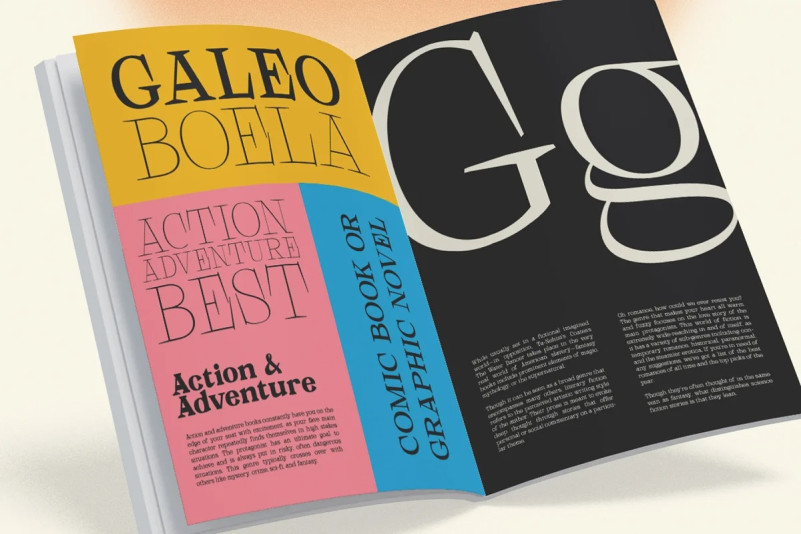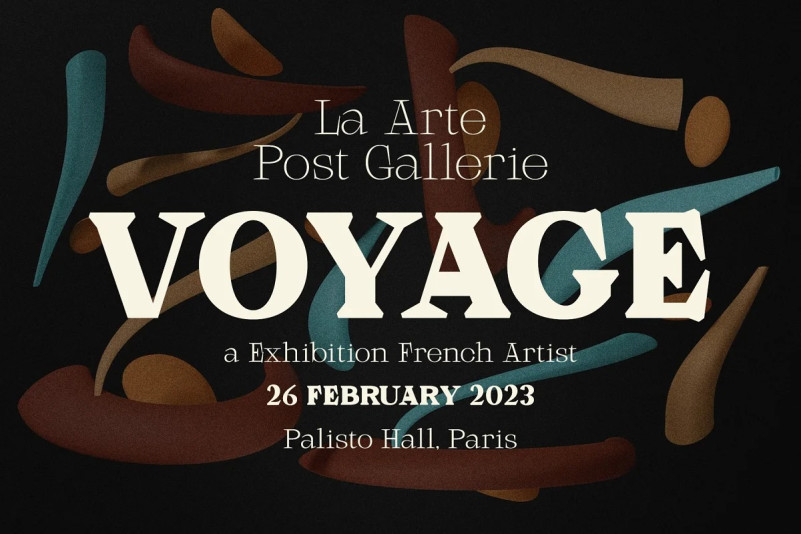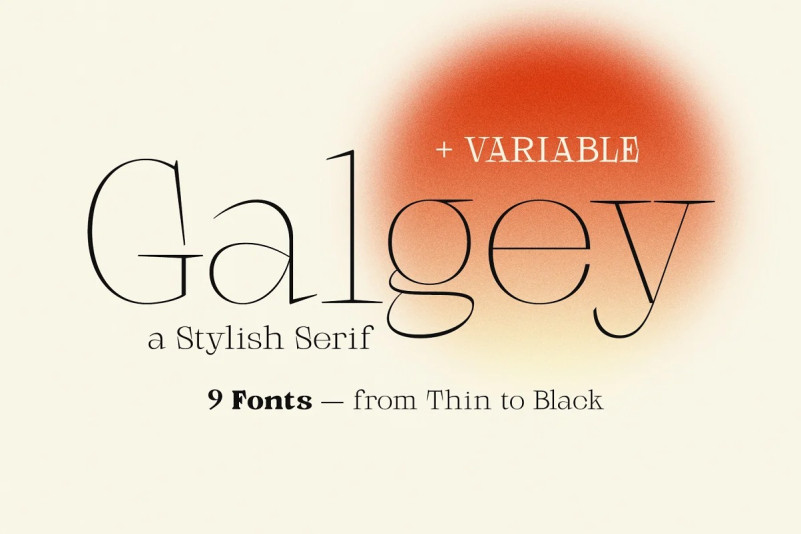
Galgey Font
Galgey Font is a stylish serif font that contains 9 weight fonts, from thin to black. Galgey is a simple and modern font suitable for any kind of design, whether it be print or digital. These fonts are well kerned, and should be usable in all programs without any additional plug-ins or software.
Galgey is a stylish serif font that you can use for your website, logo, branding and more. With nine weights from thin to black, Galgey is a flexible typeface that can be used in any context. The beautiful curves of the letters make it perfect for use in titles, logos, commercial print and other display situations where space is limited.